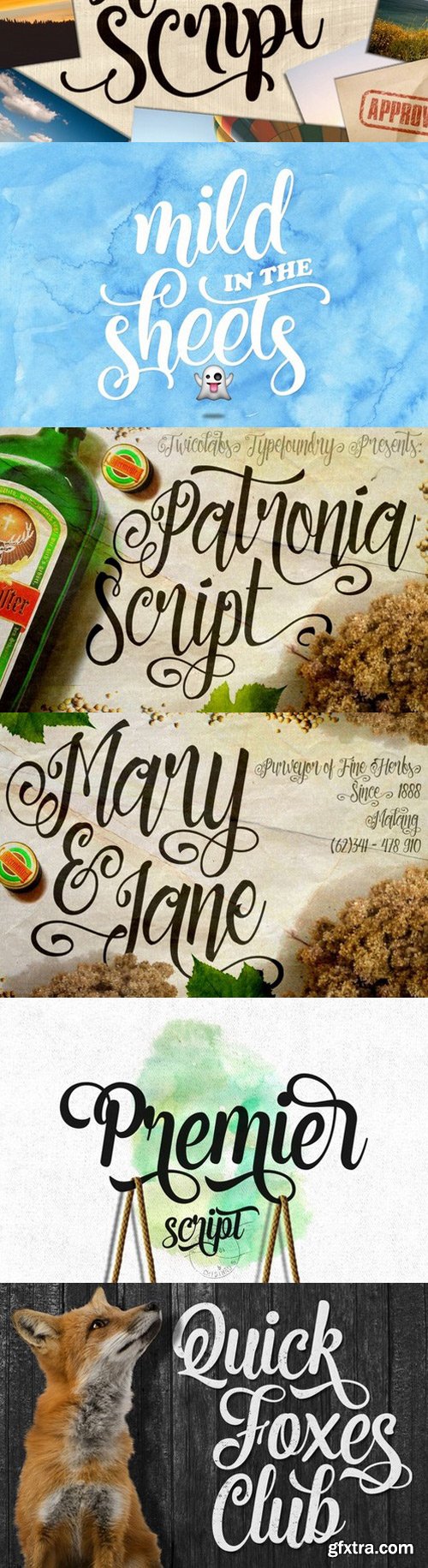
5 Sick Script
5 Sick Script(s) is a bundle of our script fonts/typefaces. This pack suits best for almost all of your designing project; wedding invitations, t-shirt designs, fancy logotype, quote writings, etc.
- Deadhead Brush
- Deadhead Script
- Kite Script
- Patronia Script
- Premier Script